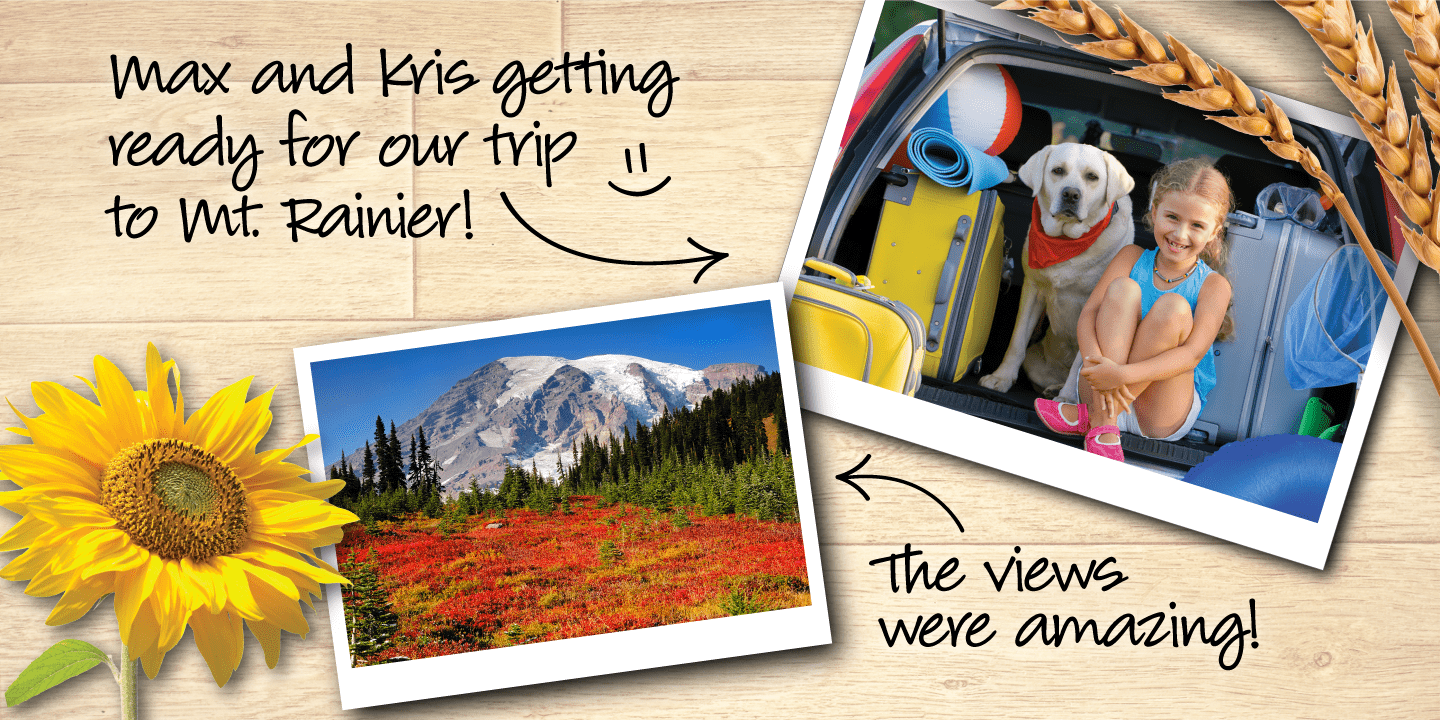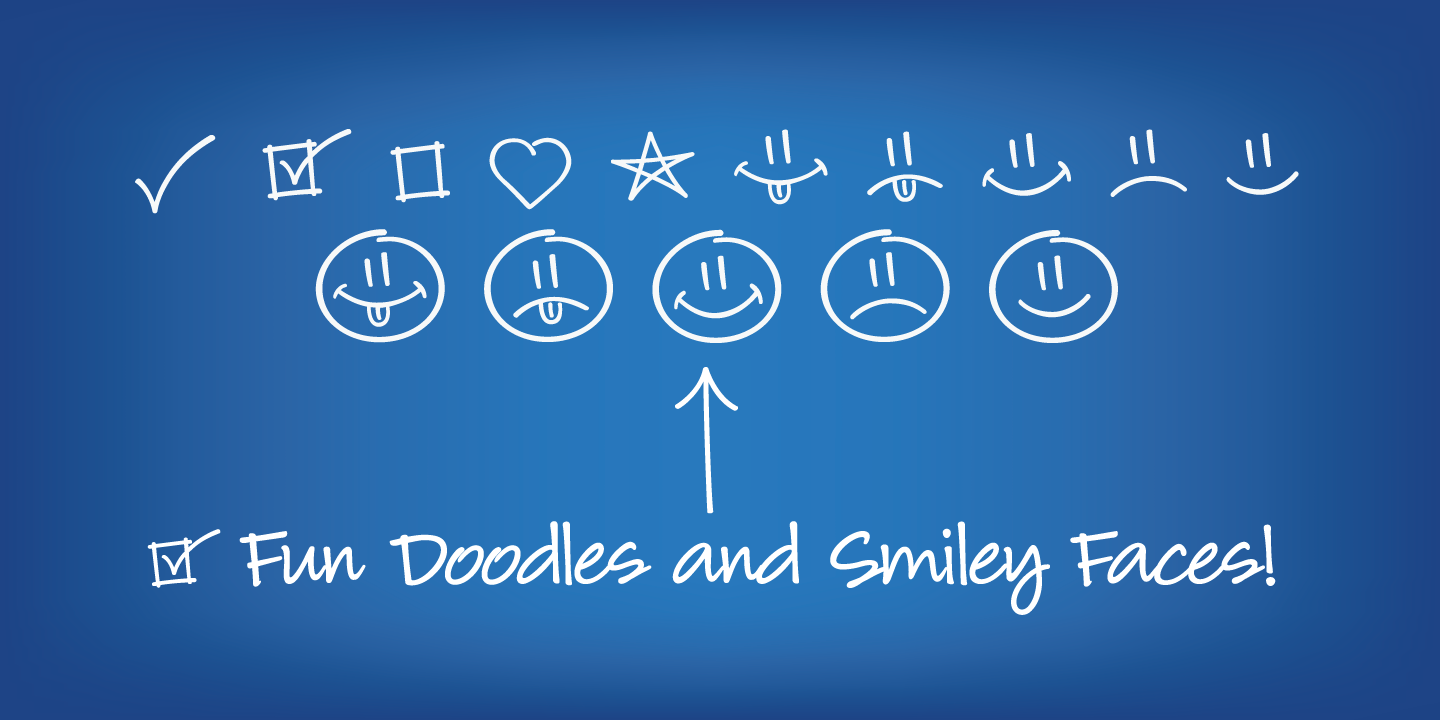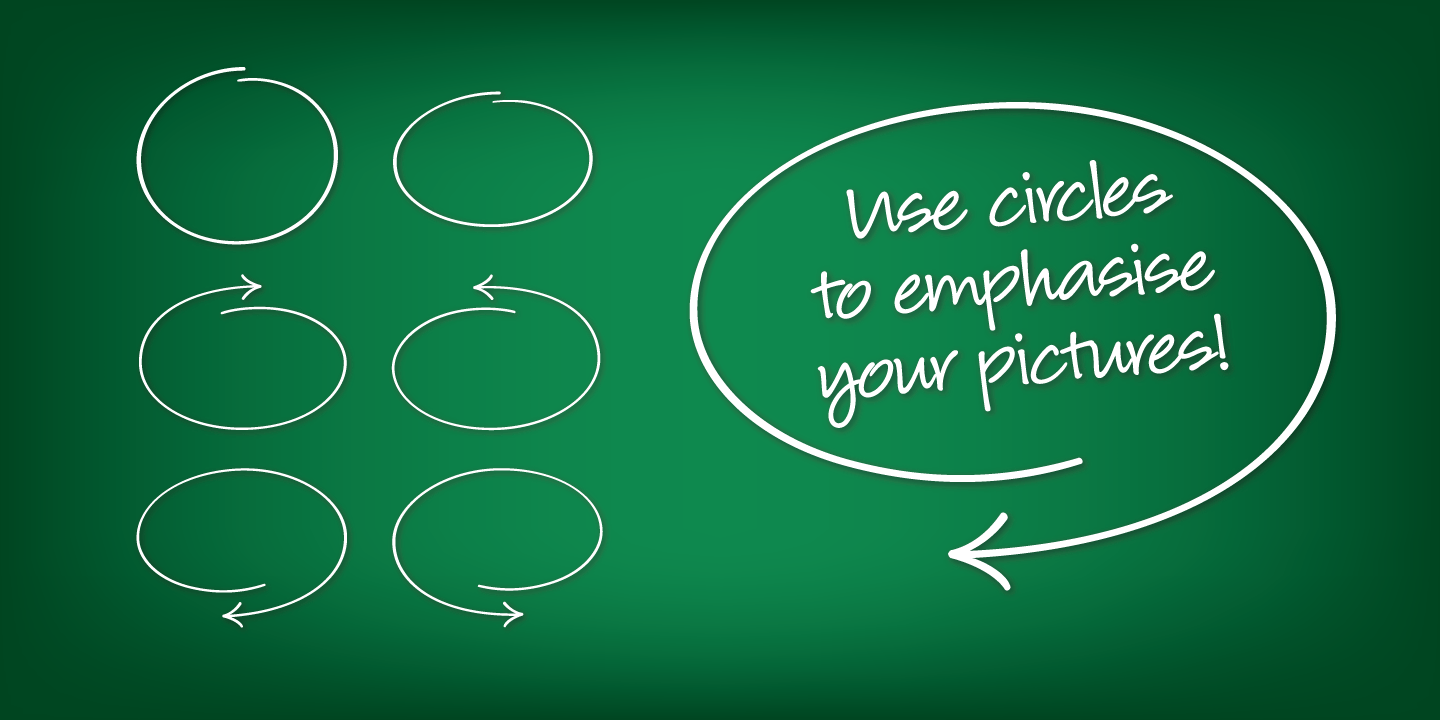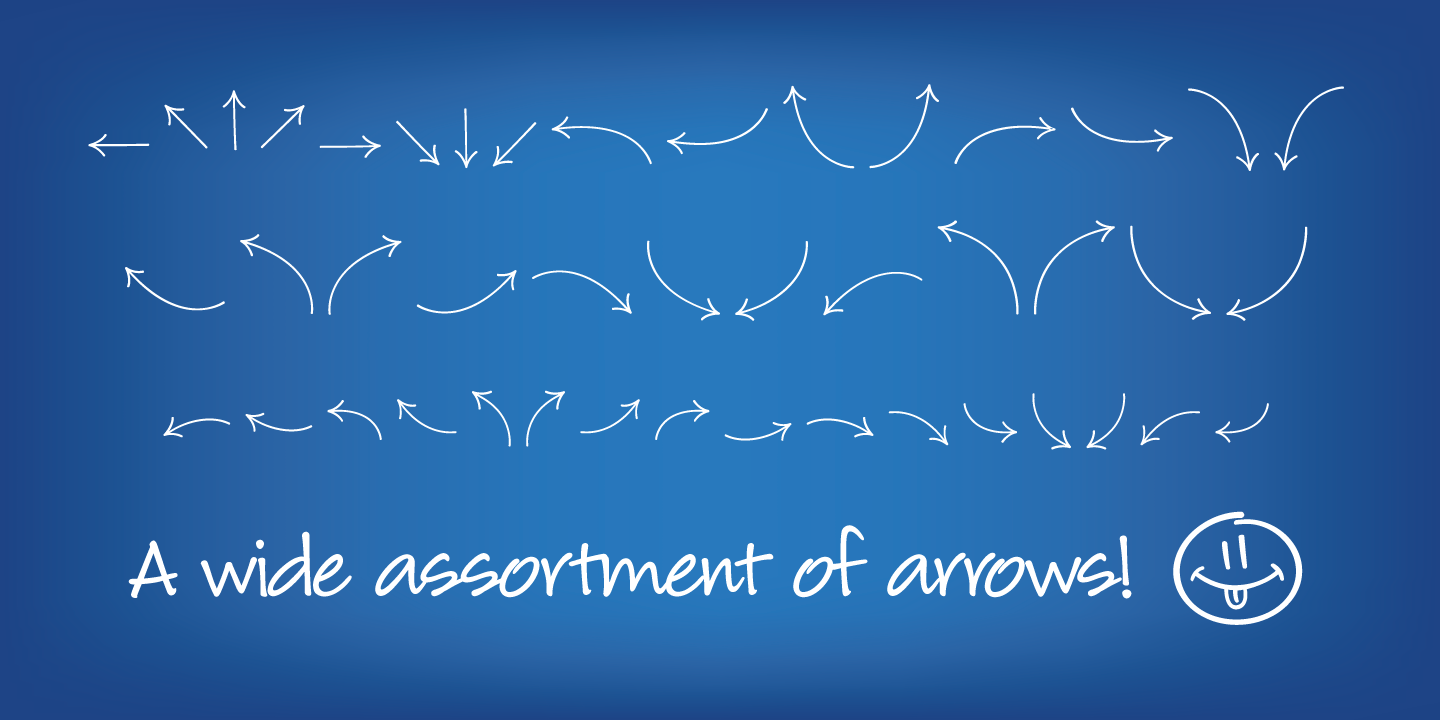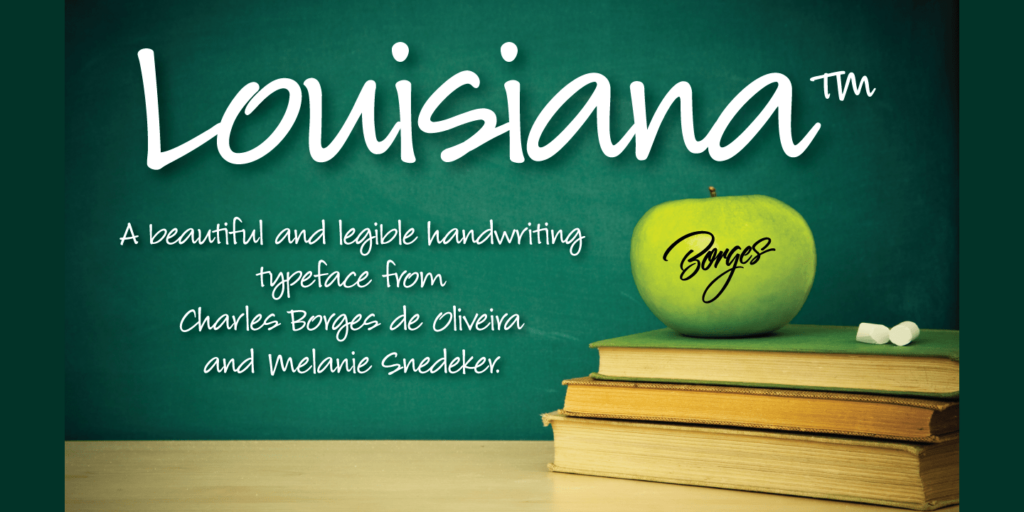
Louisiana originated from the lovely handwriting style of Melanie Snedeker. Lettering Artist Charles Borges de Oliveira then refined the letter forms to produce this one of a kind handwriting script. When you need a legible handwriting font, Louisiana…